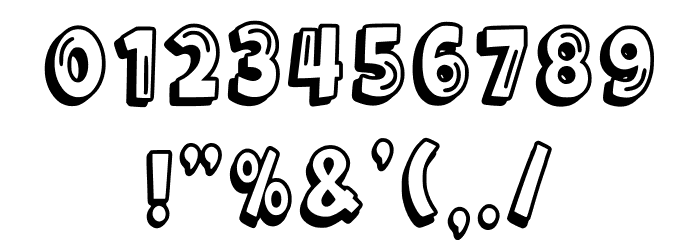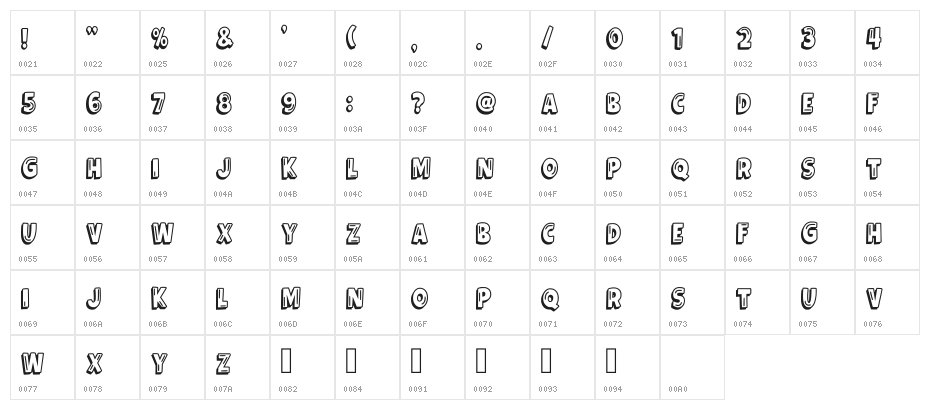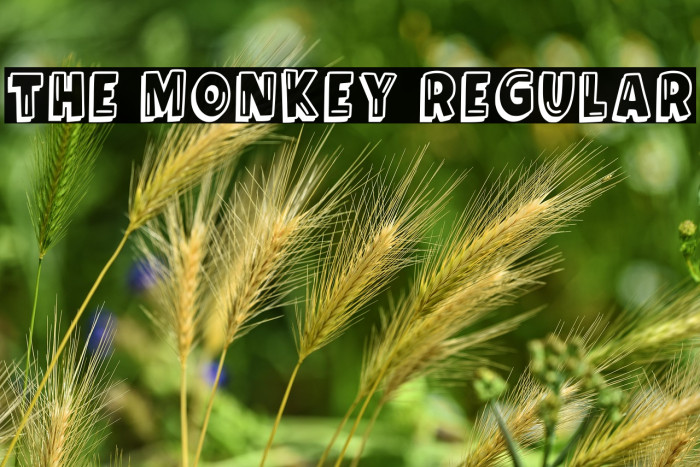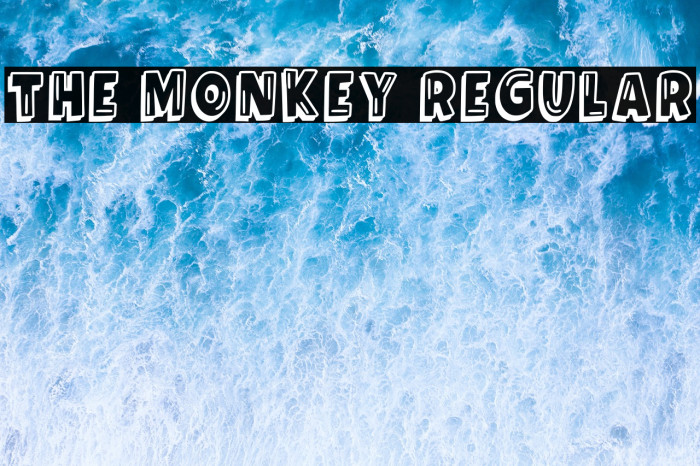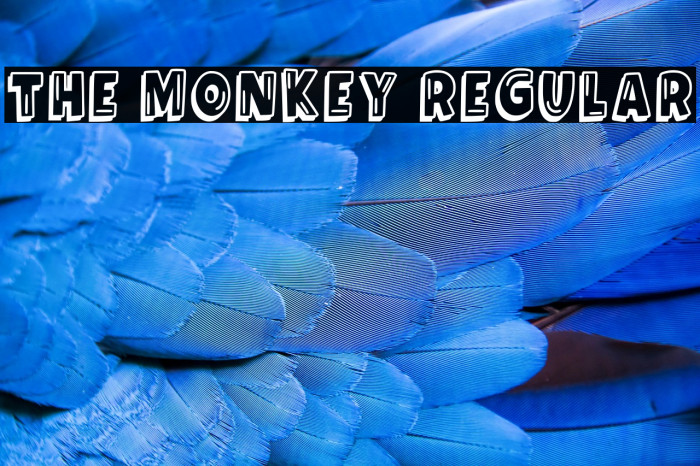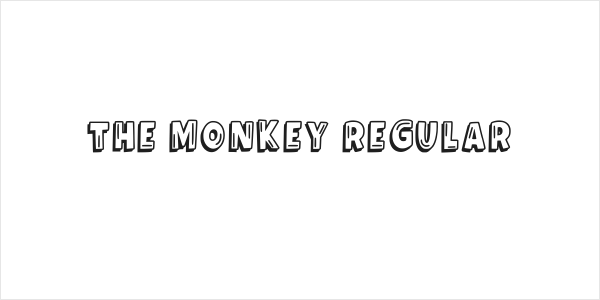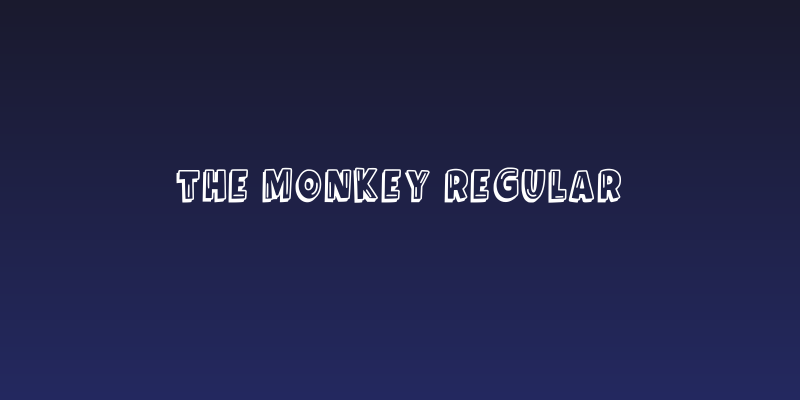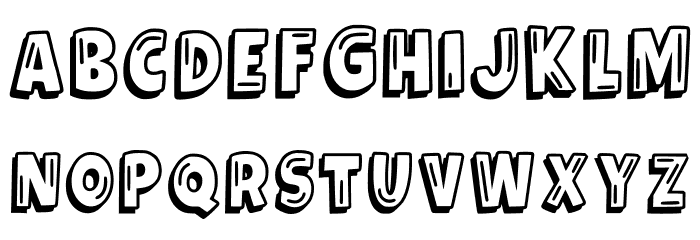
The Monkey Regular Font
The Monkey Regular Description
This playful and bold font features a three-dimensional effect with a shadow that gives each character a sense of depth and movement. The letters are uppercase and have a cartoonish, whimsical style that makes them stand out. The strokes are thick and consistent, providing a strong visual impact. The numbers and special characters follow the same design, ensuring a cohesive look across all elements. This font is ideal for projects that require a fun and engaging aesthetic.
| Overall Style | Playful, Cartoonish |
| Proposed Projects | Perfect for children's books, comic strips, playful branding, and eye-catching posters. |